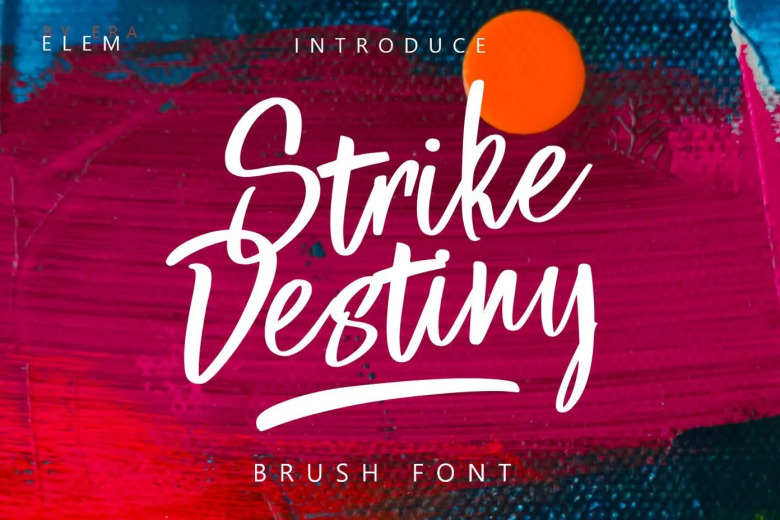
Strike Destiny Font
Introducing the Strike Destiny Font, handcrafted brush fonts! A bold, free-flowing and confident brush font. Strike Destiny is a script font with a stroke style. This font is suitable for use from handwritten quotes, to product packaging, merchandise and branding projects.
Complete with Uppercase and Lowercase, Numberic, Ligature, and coupled with this sweep alternative it will look very impressive.
Strike Destiny Brush Script Font